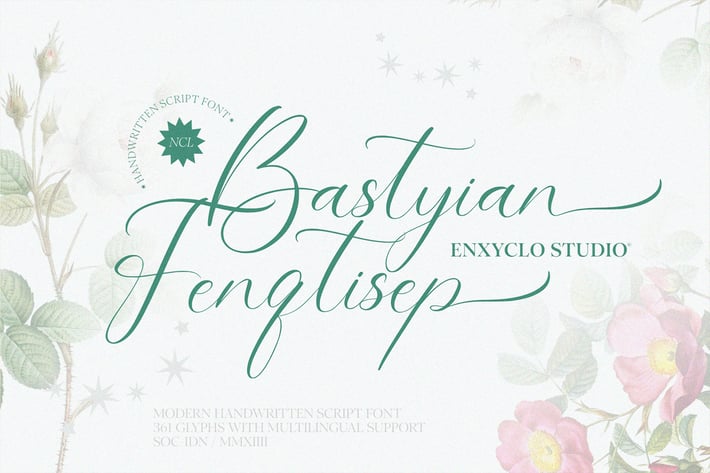
NCL Bastyian Fenqtisep - Handwritten Script Font
NCL Bastyian Fenqtisep is a modern handwritten script display font. Masterfully designed to become a true favorite, this font has the potential to bring each of your creative ideas to the highest level! It was purposely crafted to be used in large point sizes, although it doesn’t lose its magic in small point sizes. It is perfect for headline, digital ads, magazines, website, poster, branding, and logos. No matter the topic, this font will be an incredible asset to your fonts’ library, as it has the potential to elevate any creation. With this beautiful font, absolutely you can make your project stand out from the rest.
361 Unique Glyphs
14 Ligature
Stylistic Set 1-2
Numeral, Punctuation & Symbols
* Multilingual Support